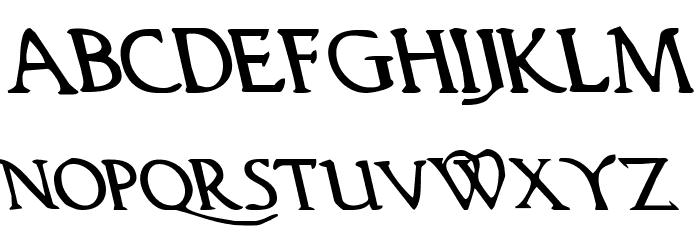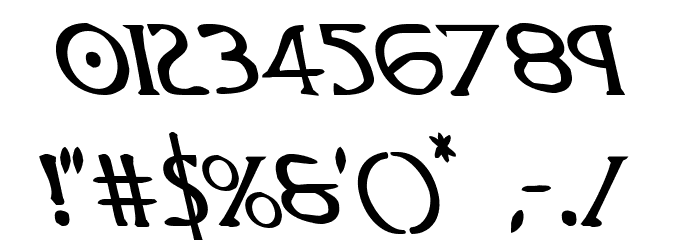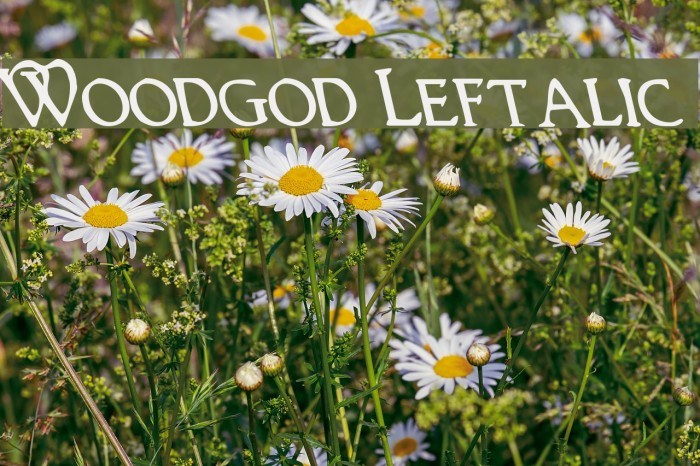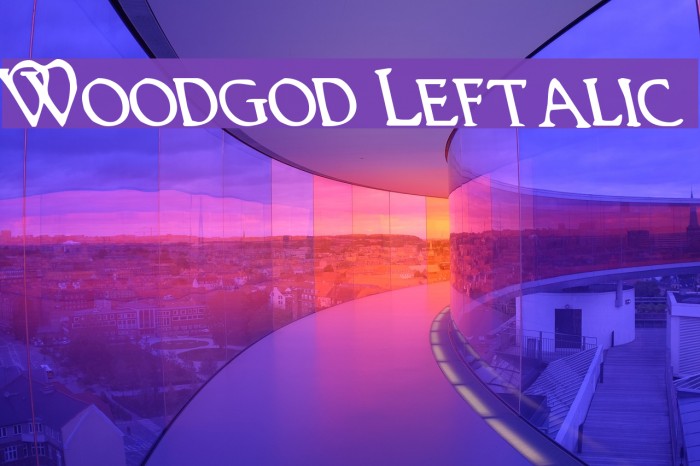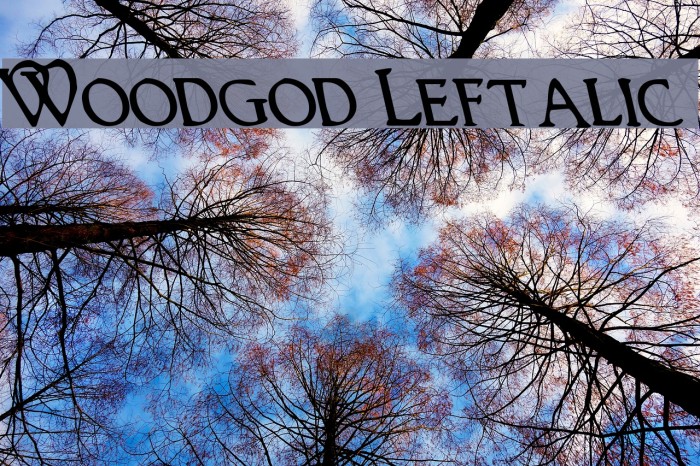
Woodgod Leftalic Font
This font features a unique and artistic style with a slight leftward slant, giving it a dynamic and whimsical appearance. The characters are bold and have a hand-drawn quality, with varying stroke thickness that adds to its charm. The uppercase letters are particularly distinctive, with some characters incorporating decorative elements such as swashes and curls. The lowercase letters maintain a consistent style, complementing the uppercase set. Numerals are clear and legible, while special characters are creatively designed to match the overall aesthetic. This font is ideal for projects that require a touch of creativity and flair.
A bold, artistic font with a leftward slant and decorative elements.
- Proposed Projects: Perfect for creative projects such as posters, invitations, and artistic branding.
- Use Case: Headlines, Logos, Artistic designs